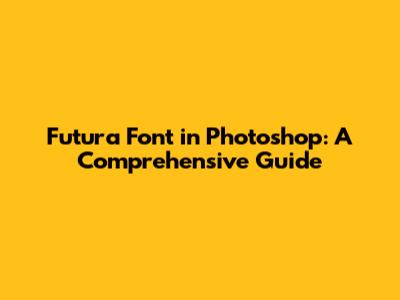
Futura Font In Photoshop: A Comprehensive Guide
Hey guys! Ever wondered how to get that sleek, modern look in your designs? Chances are, you’ve stumbled upon the Futura font. It's a classic, geometric sans-serif typeface that's been making designs look sharp for decades. Today, we're diving deep into using Futura in Photoshop, covering everything from installing it to mastering its nuances for killer designs.
What is Futura Font?
Before we jump into Photoshop, let’s understand what makes Futura so special. Designed by Paul Renner in 1927, Futura is based on geometric shapes, giving it a clean and minimalist appearance. Its influence can be seen everywhere, from corporate logos to movie posters. Think about brands like Volkswagen, Supreme, and even Domino's Pizza – Futura has played a starring role in their visual identities. What sets Futura apart is its almost perfect circles, triangles, and squares that form each letter. This makes it incredibly legible and visually appealing, perfect for headlines, body text, and everything in between. The font exudes a sense of modernity and efficiency, which is why designers often reach for it when they want to convey a message of innovation and clarity. Using Futura effectively means understanding its strengths: it’s fantastic for creating a sense of order and precision, but it can also feel a bit sterile if not paired thoughtfully with other design elements. Knowing its history and the design principles behind it will help you leverage Futura to its fullest potential in your projects. Whether you’re working on a website, a branding project, or a simple poster, Futura can bring a touch of timeless elegance and contemporary flair. It's a font that has stood the test of time, continuing to be a favorite among designers for its versatility and clean aesthetic. So, next time you're looking for a font that screams modern sophistication, remember Futura – it might just be the perfect choice for your design needs.
Using Futura for Different Design Purposes
Now that you’ve got Futura installed, let's explore how to use it effectively in various design scenarios. Futura's versatility makes it a fantastic choice for a wide range of projects, but understanding its strengths will help you maximize its impact. For headlines and titles, Futura shines. Its clean, geometric forms grab attention and convey a sense of modernity. Use a bolder weight like Futura Bold or Futura Black for maximum impact. Just make sure your headline is concise and punchy – Futura works best when it's not cluttered. When it comes to body text, Futura can be a great option, especially for shorter paragraphs or captions. However, be mindful of its readability over long stretches. A lighter weight like Futura Light or Futura Book can make it easier on the eyes. Adjust the letter-spacing (tracking) and line-height (leading) to optimize readability. A little extra space can go a long way in making the text feel more open and inviting. In logo design, Futura is a classic choice for brands that want to project a sense of sophistication and efficiency. Its geometric simplicity makes it easily recognizable and scalable. Many famous brands have used Futura (or similar geometric fonts) to great effect. When using Futura in a logo, consider pairing it with a contrasting font for a more dynamic look. For example, you might use Futura for the main brand name and a serif font for the tagline. For branding materials like business cards and brochures, Futura can help create a cohesive and professional look. Use consistent weights and styles across all your materials to reinforce your brand identity. Pay attention to the color palette as well – Futura pairs well with both bold and minimalist color schemes. In web design, Futura can be used for headings, navigation menus, and even body text, but again, readability is key. Test how the font looks on different devices and screen sizes. Consider using web-safe alternatives like Montserrat or Century Gothic if you want a similar look without relying on custom font loading. No matter the design purpose, remember to experiment with different weights, sizes, and styles to find the perfect fit for your project. And don't be afraid to mix and match Futura with other fonts to create a unique and compelling visual hierarchy. The key is to balance its geometric precision with other elements to achieve a harmonious and effective design.
Adjusting Futura Font Settings in Photoshop
Alright, let’s get into the nitty-gritty of tweaking Futura in Photoshop. Knowing how to adjust font settings can make a huge difference in how your text looks. First off, the Character panel is your best friend here. You can find it under Window > Character. This panel is packed with options to customize your text. Let's start with the basics: Font Size: Adjust the size of your text to fit your design. Keep in mind readability – don't go too small! Font Weight: Futura comes in various weights like Light, Regular, Bold, and Black. Experiment with different weights to see what works best for your specific use case. Leading: This is the vertical space between lines of text. Adjusting the leading can significantly improve readability, especially for body text. A general rule of thumb is to set the leading to be slightly larger than the font size. Tracking: Tracking is the horizontal space between letters. Increasing tracking can make text feel more open and airy, while decreasing it can make it feel more compact. Be careful not to overdo it – too much or too little tracking can make text hard to read. Kerning: Kerning is the space between specific pairs of letters. Photoshop usually handles kerning automatically, but you can manually adjust it if you want to fine-tune the spacing. This is especially useful for headlines and logos where every detail matters. In the Character panel, you'll also find options for Vertical Scale and Horizontal Scale. These allow you to stretch or compress the text vertically or horizontally. Use these sparingly, as they can distort the font and make it look unnatural. There’s also the Baseline Shift option, which lets you move text up or down relative to the baseline. This can be useful for creating superscript or subscript effects. Another handy tool is the Anti-aliasing setting. This controls how Photoshop smooths out the edges of the text. Experiment with different anti-aliasing options like Sharp, Crisp, Strong, and Smooth to see what looks best on your screen. For print projects, consider using the "Sharp" setting, while for web projects, "Smooth" often works well. By mastering these font settings, you can fine-tune Futura to perfection and create stunning typography in your Photoshop projects. Play around with the different options and see what works best for your design – the possibilities are endless!
Common Mistakes to Avoid When Using Futura
Even with a versatile font like Futura, it’s easy to make mistakes that can detract from your design. Let’s go over some common pitfalls to avoid to ensure your typography is on point. First up, overusing Futura. While it's a great font, using it for everything in your design can make it feel monotonous and lack visual interest. Mix it up with other fonts to create contrast and hierarchy. For example, pair Futura headlines with a serif body text for a more balanced look. Another common mistake is ignoring readability. Futura, especially in its bolder weights, can be challenging to read in long blocks of text. Always prioritize readability by adjusting the leading, tracking, and font size. If you're using Futura for body text, consider using a lighter weight and ensuring there's enough contrast between the text and background. Stretching or distorting Futura is a big no-no. Futura's geometric forms are carefully crafted, and stretching or skewing them can ruin its aesthetic appeal. Always maintain the font's original proportions. If you need a wider or narrower version, look for a different font weight or style instead of artificially distorting it. Inconsistent font weights can also be a problem. Using too many different weights of Futura in the same design can create a cluttered and disorganized look. Stick to a maximum of two or three weights and use them consistently throughout your project. Also, not paying attention to kerning can make your text look unprofessional. While Photoshop usually handles kerning automatically, it's always a good idea to double-check the spacing between letters, especially in headlines and logos. Adjust the kerning manually if necessary to ensure a balanced and visually appealing look. Finally, using Futura in the wrong context can be a mistake. Futura's modern, geometric style might not be suitable for every project. Consider the overall tone and message of your design and choose fonts that complement it. For example, Futura might not be the best choice for a vintage or rustic design. By avoiding these common mistakes, you can ensure that Futura enhances your designs rather than detracting from them. Always pay attention to the details and prioritize readability and visual harmony.
Futura Font Alternatives
Okay, so Futura is amazing, but sometimes you need a font that's similar but maybe a bit different, or perhaps more accessible. Here are some fantastic alternatives to Futura that you can use in your designs. First, let's talk about Montserrat. This is a super popular Google Font that shares a similar geometric sans-serif style with Futura. It's incredibly versatile and works great for headlines, body text, and UI elements. Plus, being a Google Font, it's free and easy to use on websites. Another excellent alternative is Century Gothic. It has a similar clean and modern look to Futura, with slightly rounded corners that give it a softer feel. Century Gothic is a great choice for both print and web projects and is widely available on most systems. Proxima Nova is another strong contender. While it's not free, it's a highly regarded geometric sans-serif that offers a wide range of weights and styles. Proxima Nova is known for its excellent readability and versatility, making it a great choice for branding, web design, and print materials. If you're looking for something a bit more unique, consider Avenir. Designed by Adrian Frutiger, Avenir is a geometric sans-serif that's known for its humanist touch. It has a warmer and more approachable feel than Futura, making it a great choice for projects that need a touch of personality. Circular STD is another alternative that's gained popularity in recent years. It's a modern geometric sans-serif that's known for its clean lines and minimalist aesthetic. Circular STD is a great choice for logos, branding, and UI design. Lastly, don't forget about Open Sans. This is another widely used Google Font that offers a clean and neutral look. While it's not as strictly geometric as Futura, it's a versatile and highly readable font that works well in a variety of contexts. When choosing a Futura alternative, consider the specific needs of your project and the overall tone you're trying to achieve. Experiment with different fonts and see what works best for you. And remember, the best font is the one that effectively communicates your message and enhances your design.
So there you have it, folks! A comprehensive guide to using Futura font in Photoshop. From installing it to adjusting its settings and exploring alternatives, you're now well-equipped to create stunning typography in your designs. Remember, Futura's geometric simplicity makes it a powerful tool for conveying modernity and clarity, but it's important to use it thoughtfully and avoid common mistakes. Experiment with different weights, sizes, and styles to find the perfect fit for your project. And don't be afraid to mix and match Futura with other fonts to create a unique and compelling visual hierarchy. Whether you're designing a logo, a website, or a simple poster, Futura can help you achieve a polished and professional look. Keep practicing and exploring, and you'll be amazed at the beautiful designs you can create with this classic typeface. Now go out there and make some typographic magic happen!